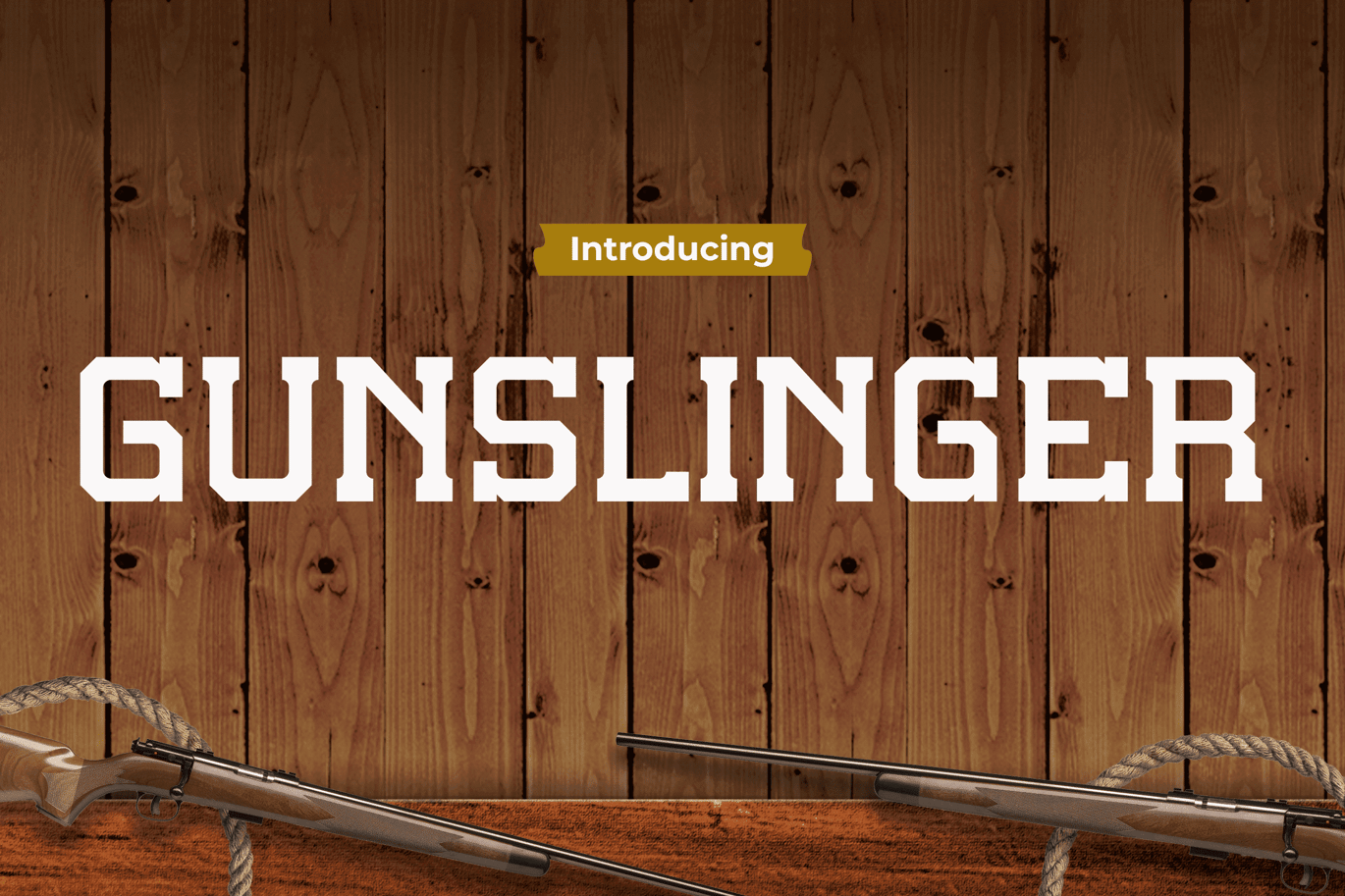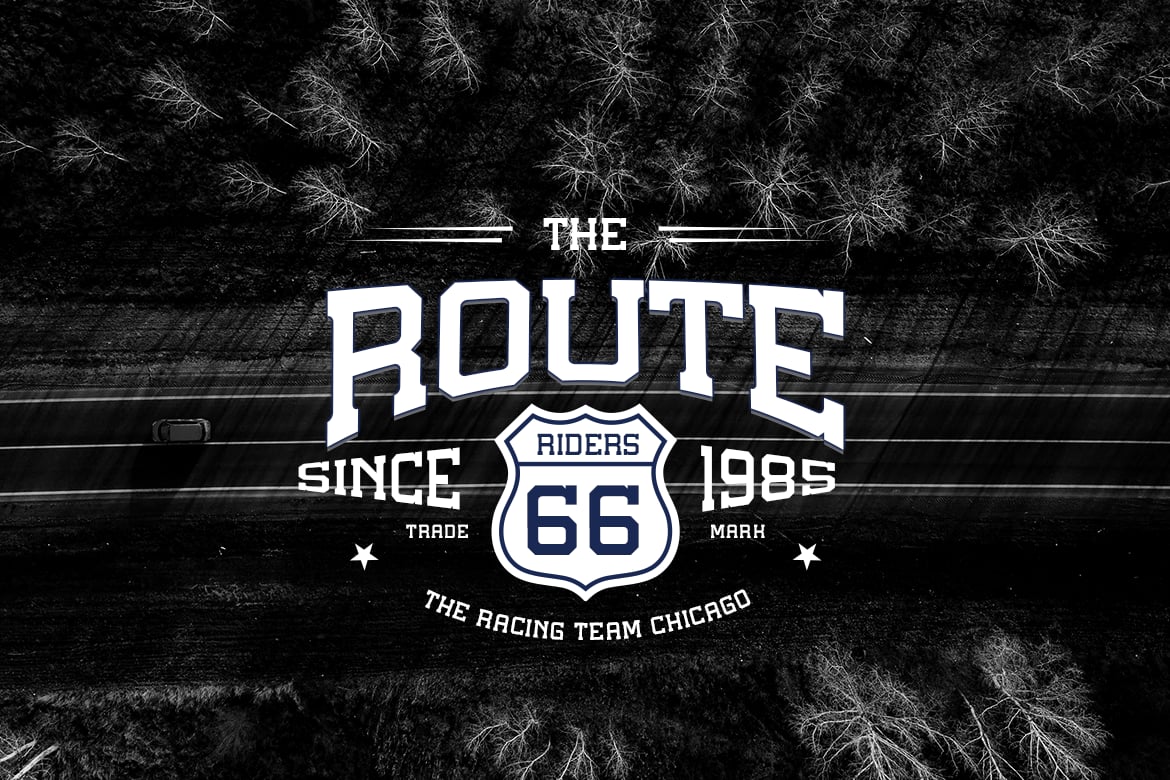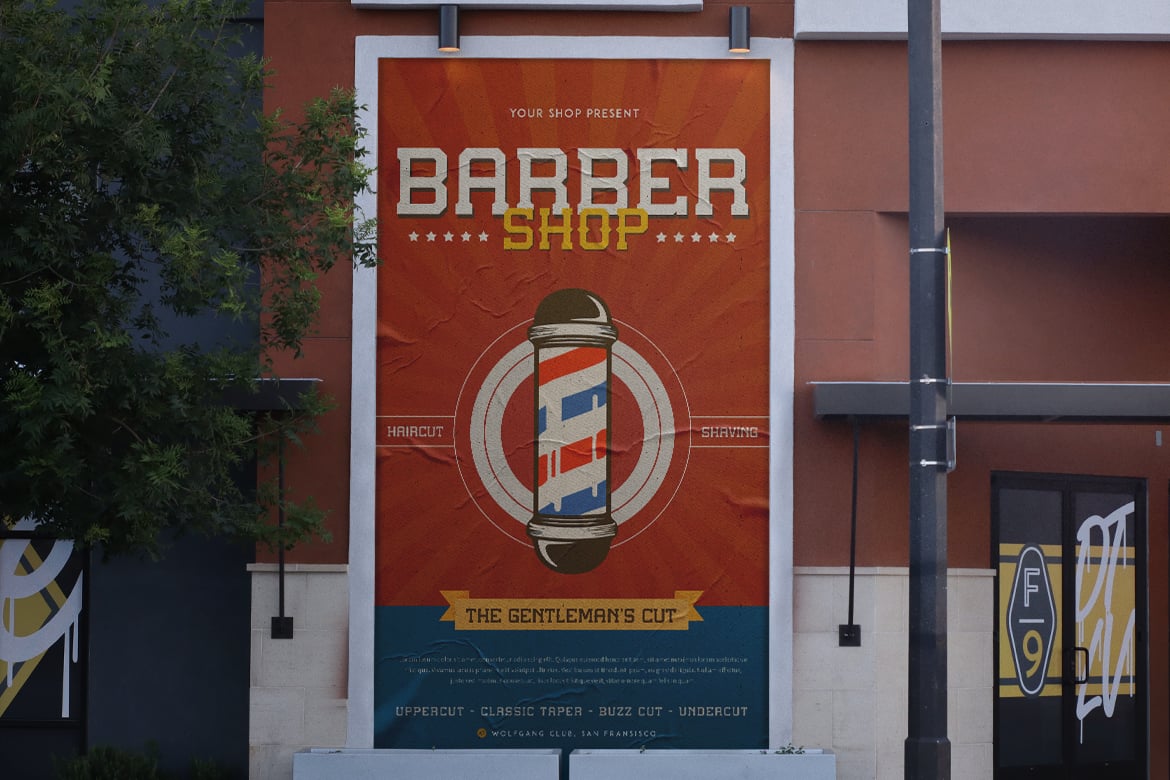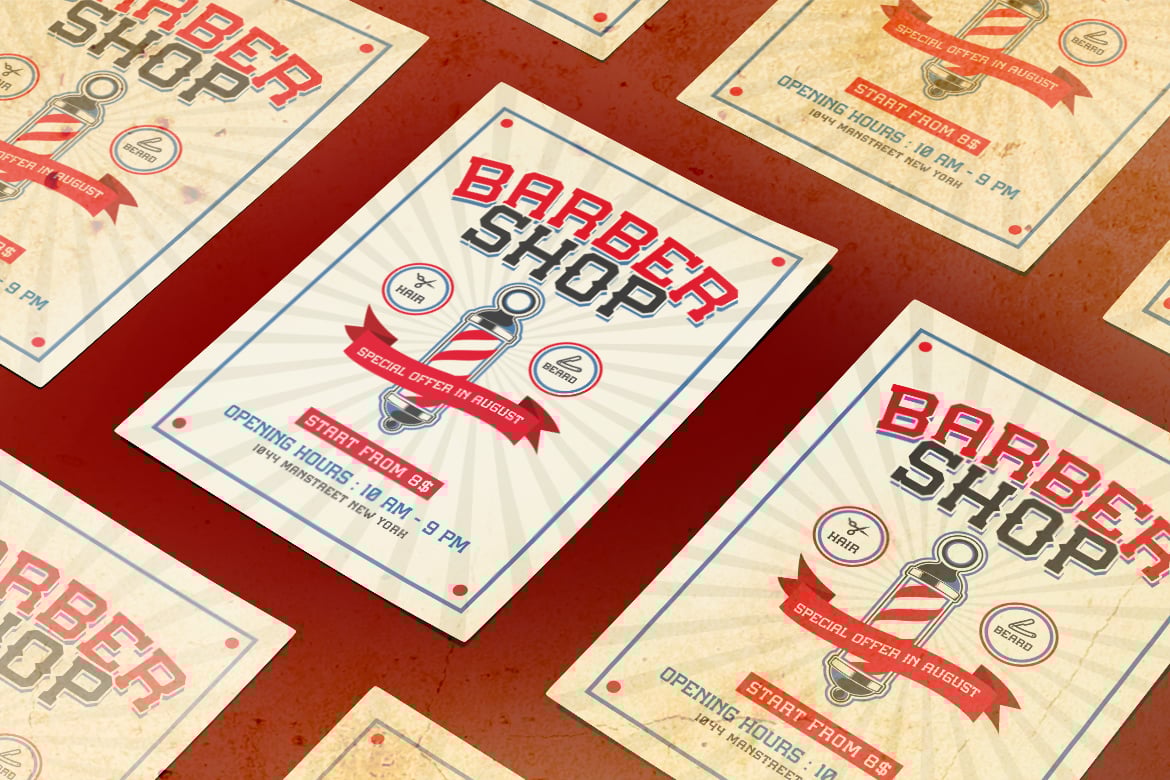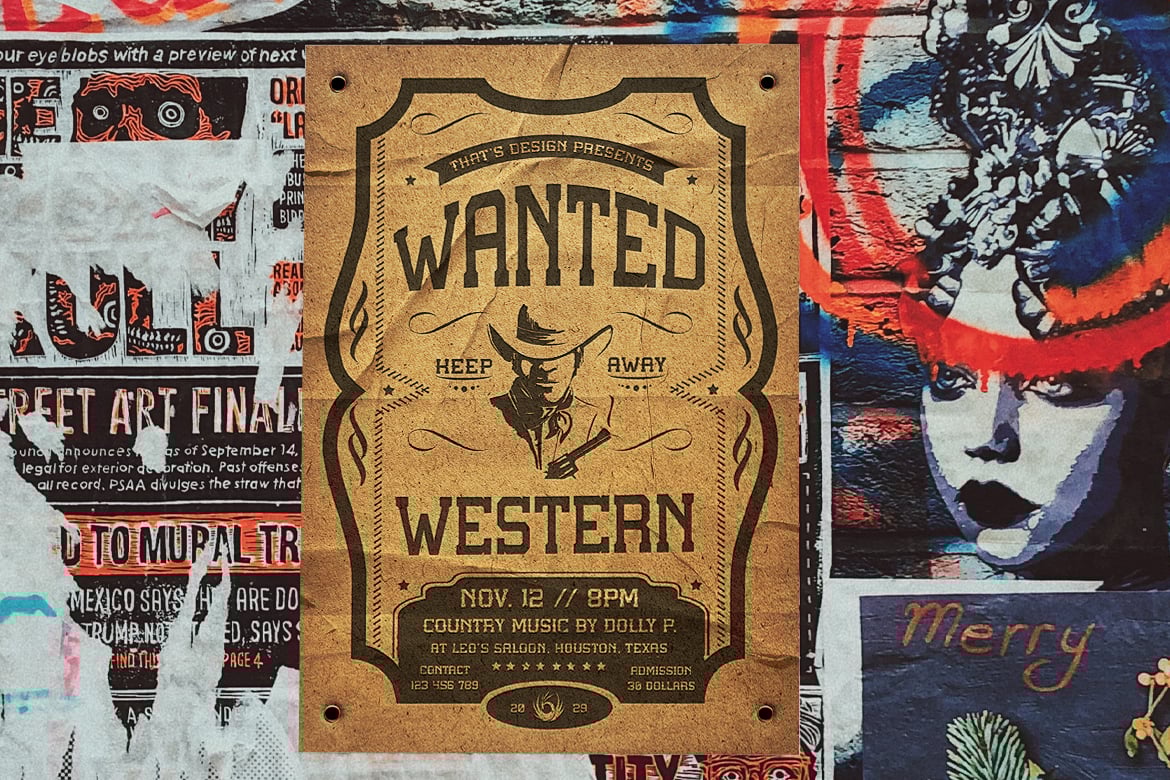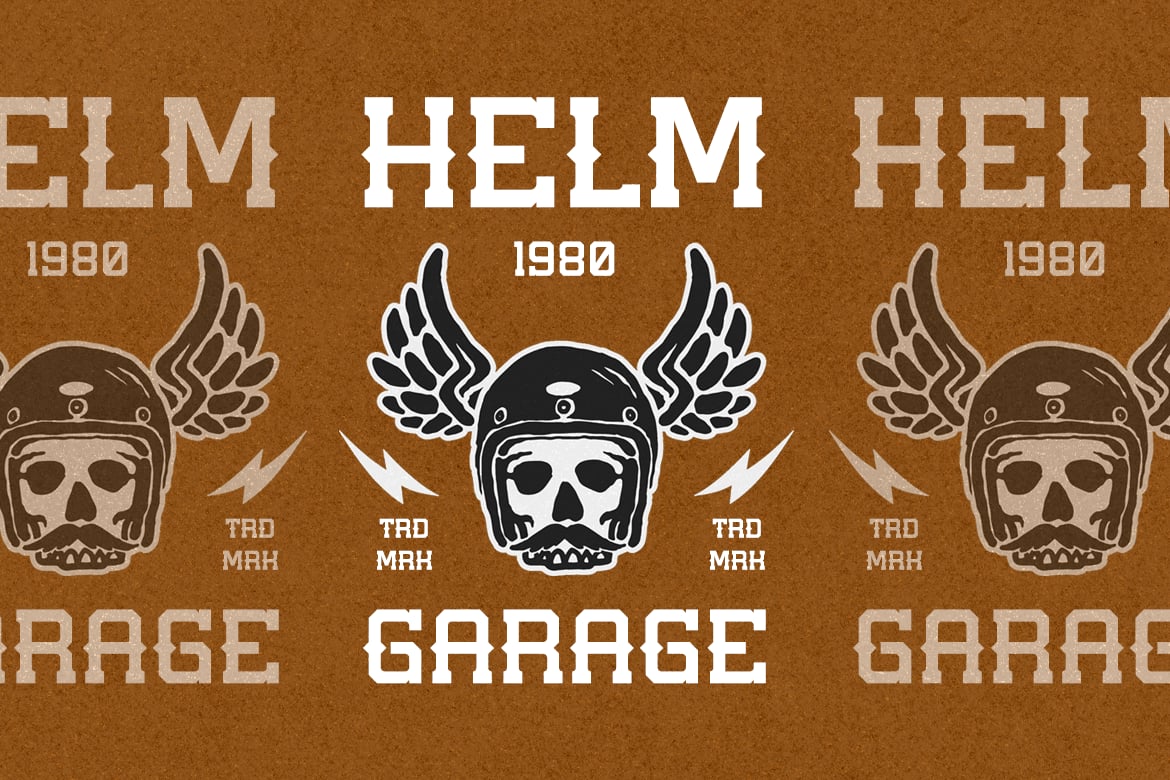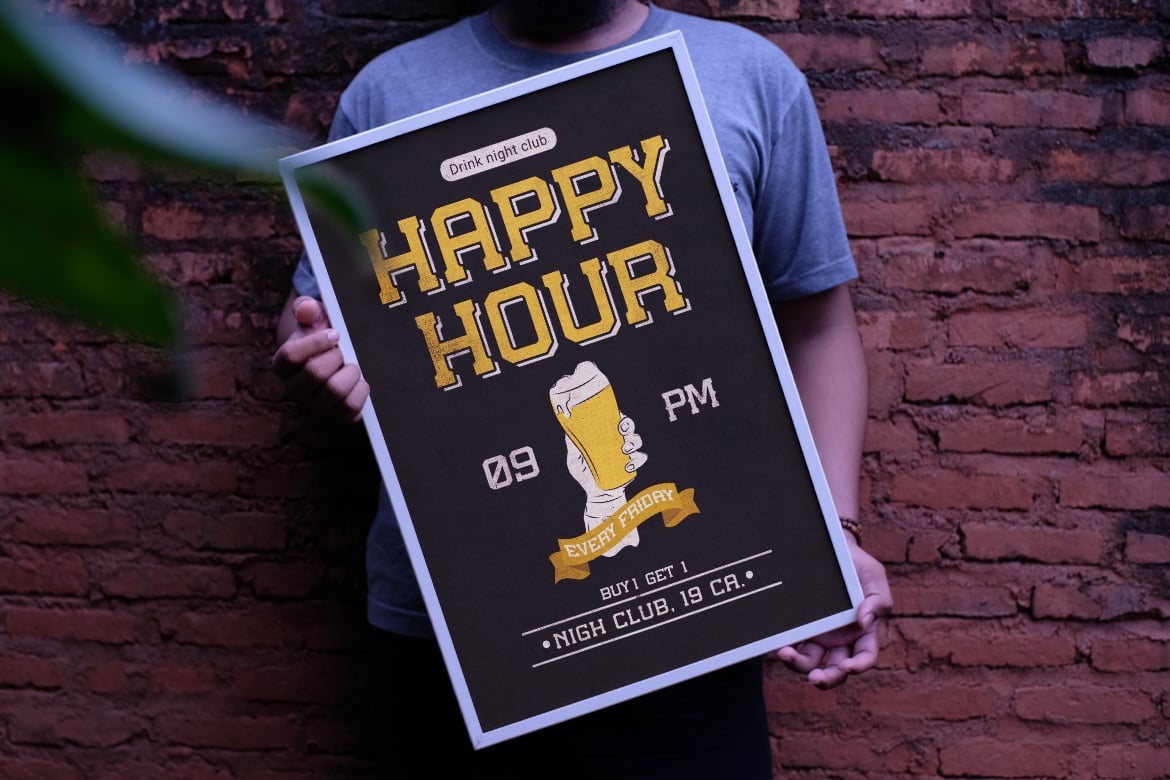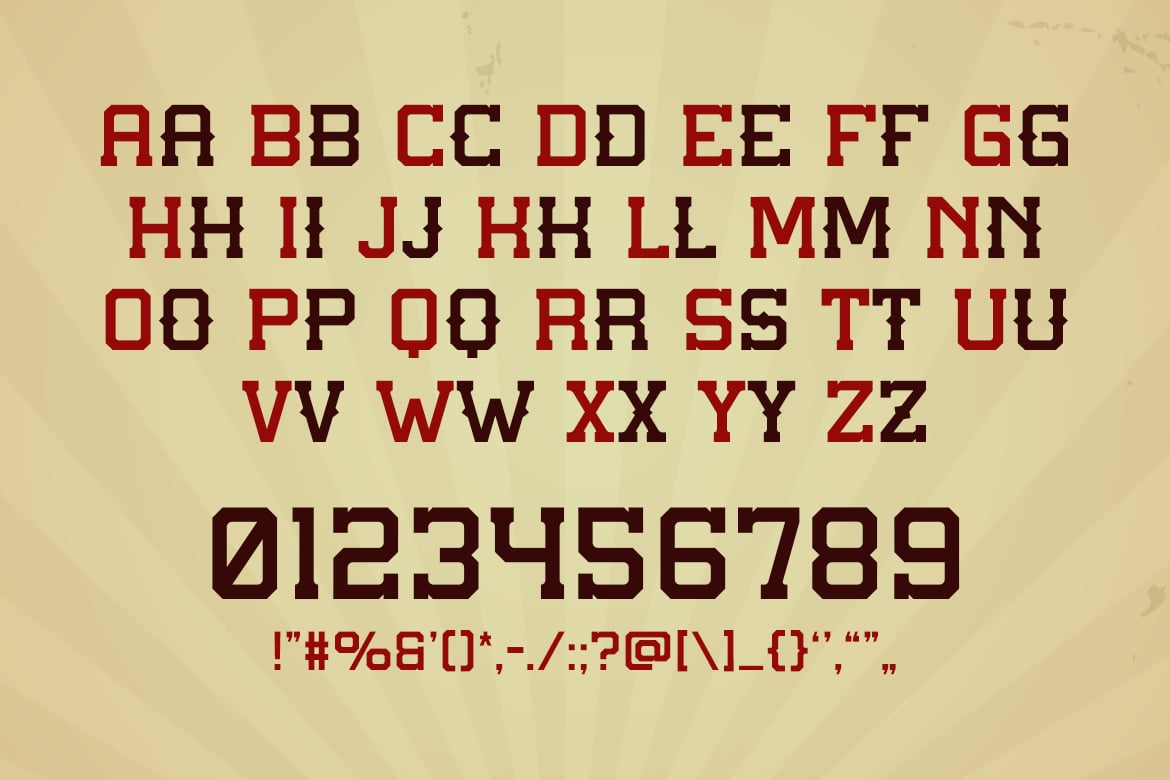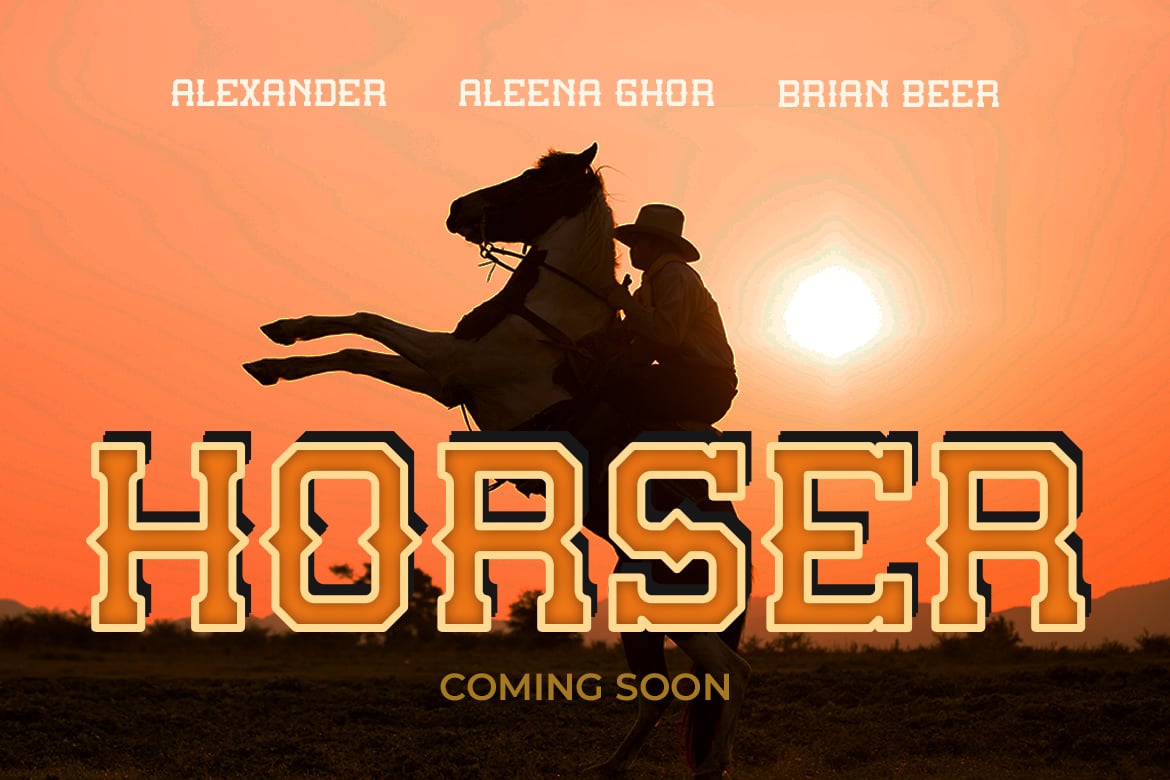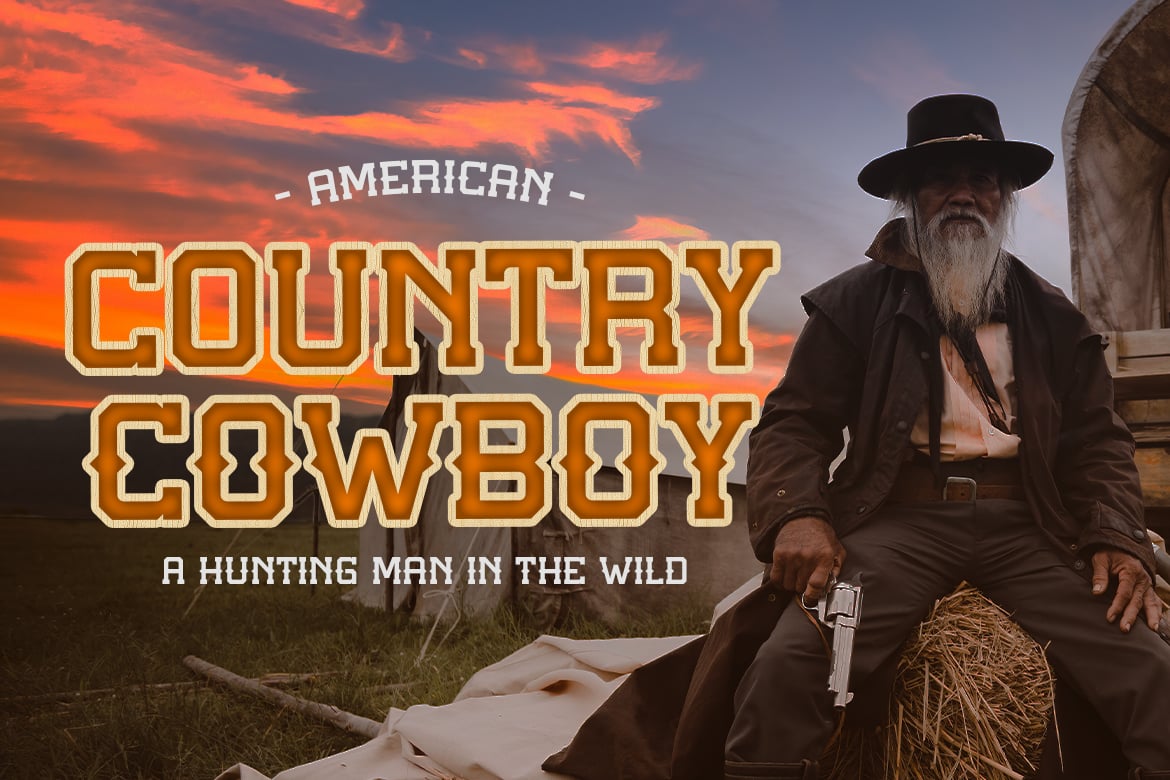
Gunslinger – Capture the Cowboy Font
Gunslinger is a font that harkens back to the rugged days of the Old West, embodying the spirit of cowboy life with a distinctly Western style. This retro font is perfect for those looking to infuse their projects with the boldness and adventure of the frontier. Ideal for creating striking logos, dynamic quotes, and engaging invitations, Gunslinger adds an authentic Western touch that is hard to miss. Its bold, cowboy-inspired design makes it suitable for posters and greetings that aim to stand out, while its rustic charm enhances packaging and branding with a unique edge. Whether used for book covers, event promotions, headlines, or advertising, Gunslinger ensures your communications capture the spirit of the Wild West with a modern twist.